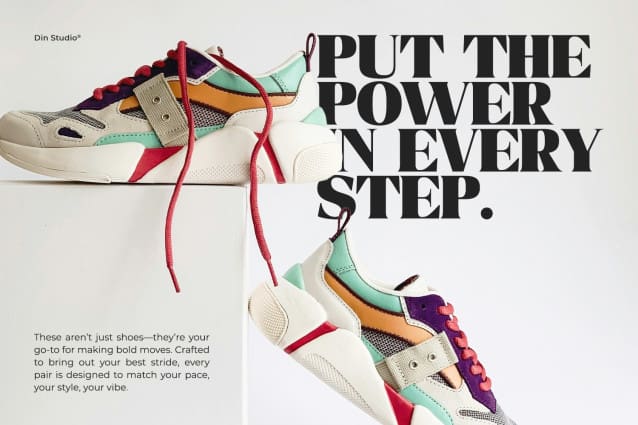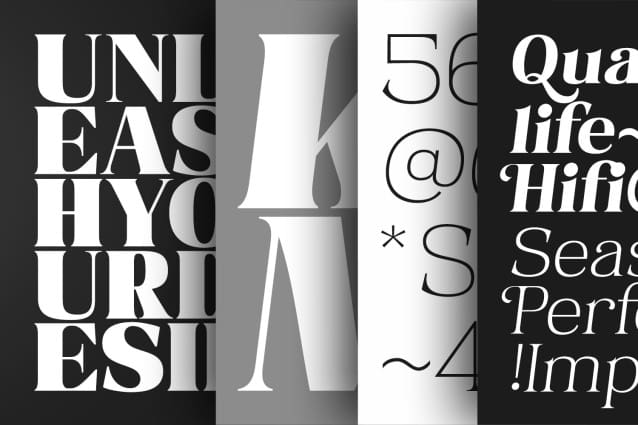
Valiny Font
Valiny Font, a sophisticated serif font family designed to elevate your creative projects. With 9 distinct weights and an elegant Italic version, Valiny combines timeless elegance, modern flair, and unwavering strength. Its harmonious proportions and refined details make it more versatile. Valiny’s versatility ensures that every letterform speaks with confidence and sophistication, giving your designs a polished, professional edge.